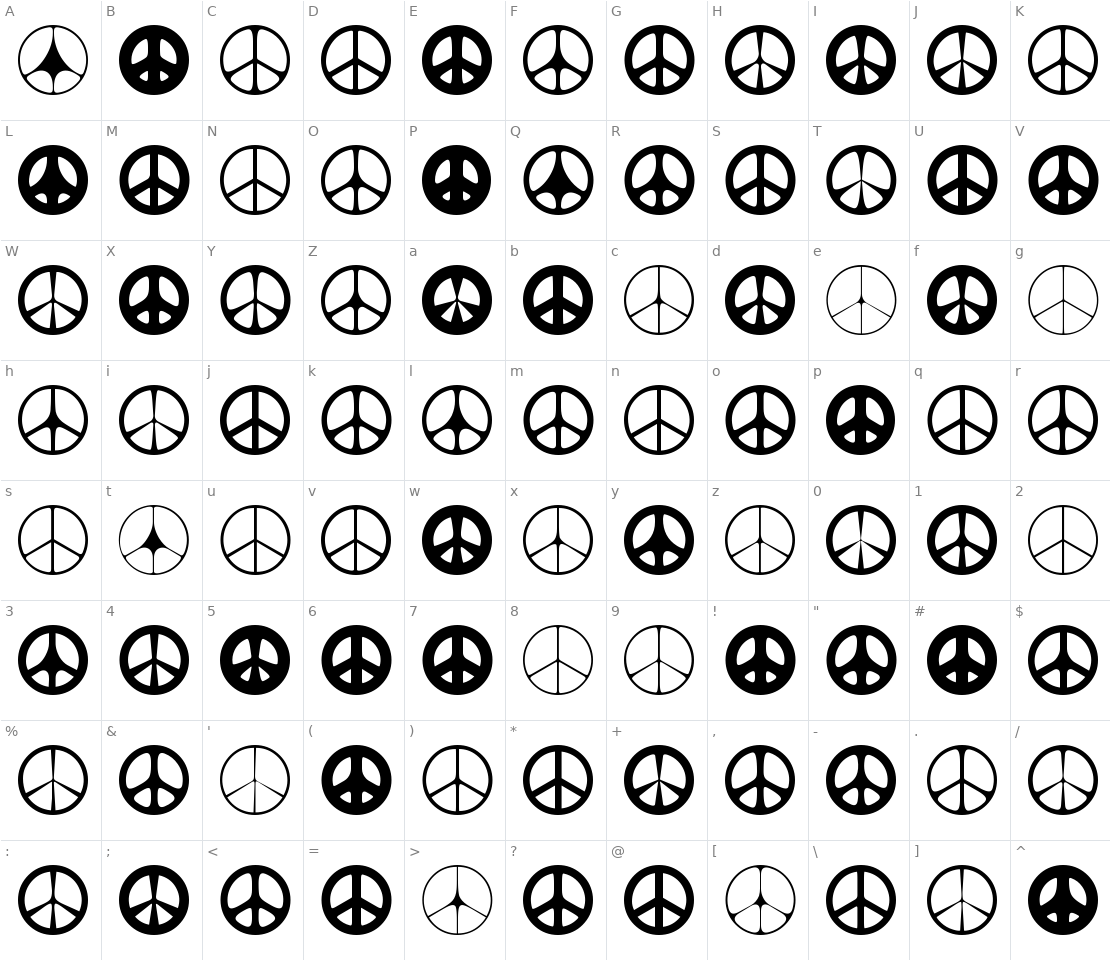
Wahei
by Luc Devroye
Wahei is a dingbat font from Luc Devroye built around peace symbols, circular icons, and retro-flavored decorative shapes. It's not a text face but a collection of symbolic glyphs, useful for adding ornamental accents, dividers, or themed iconography to posters, zines, and peace-movement-inspired design work.